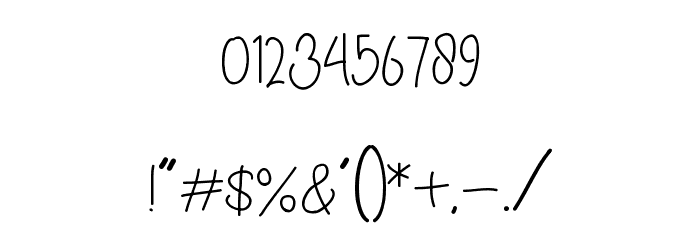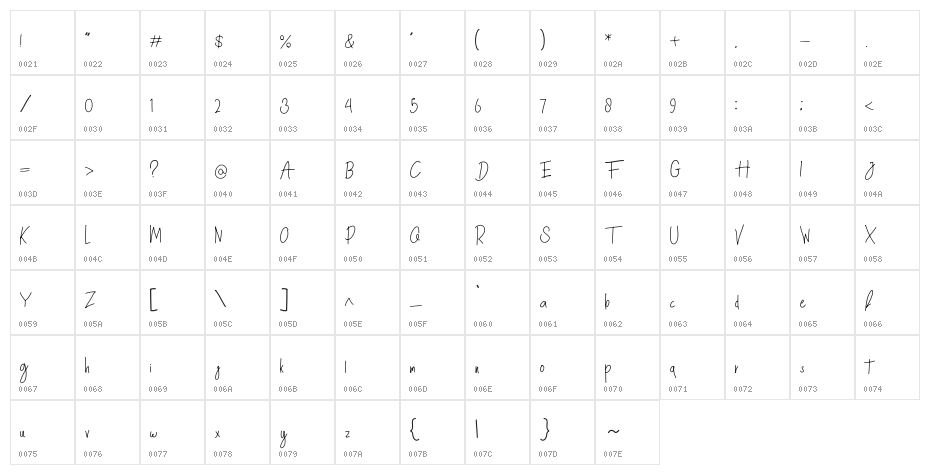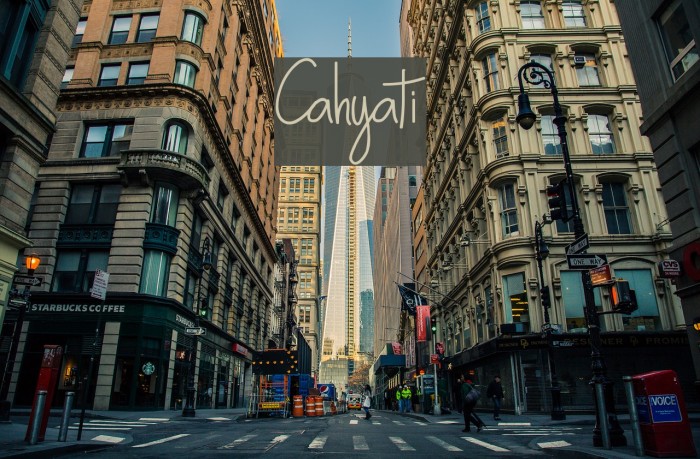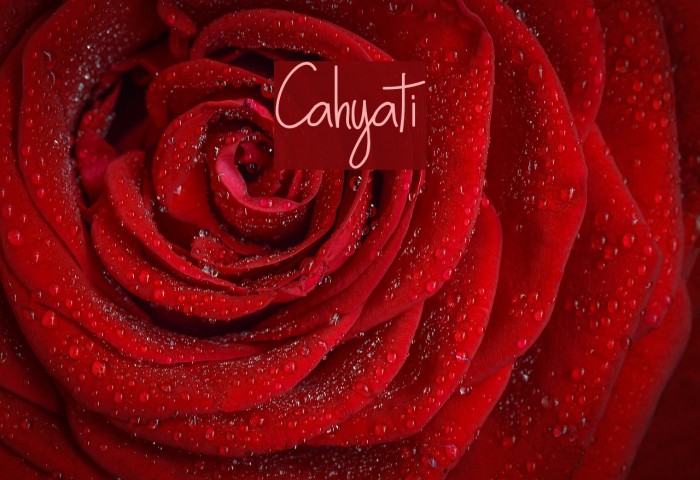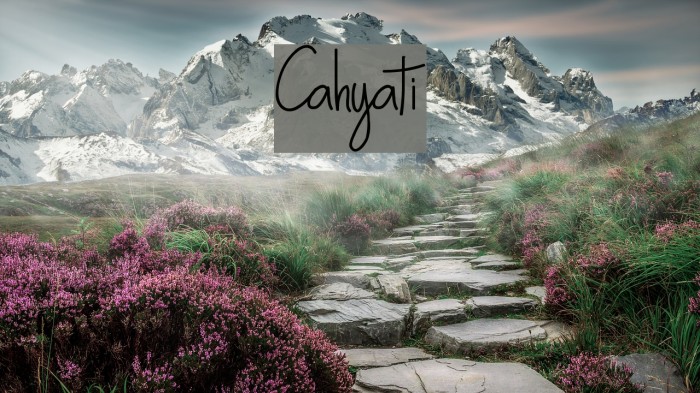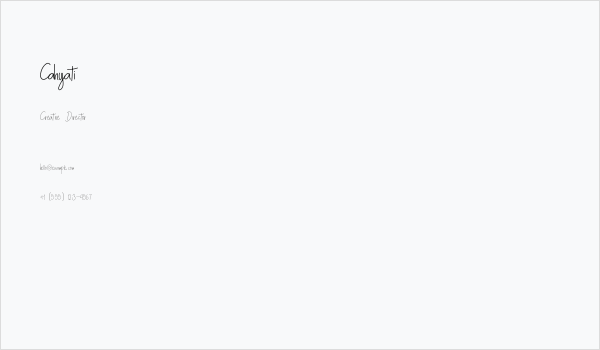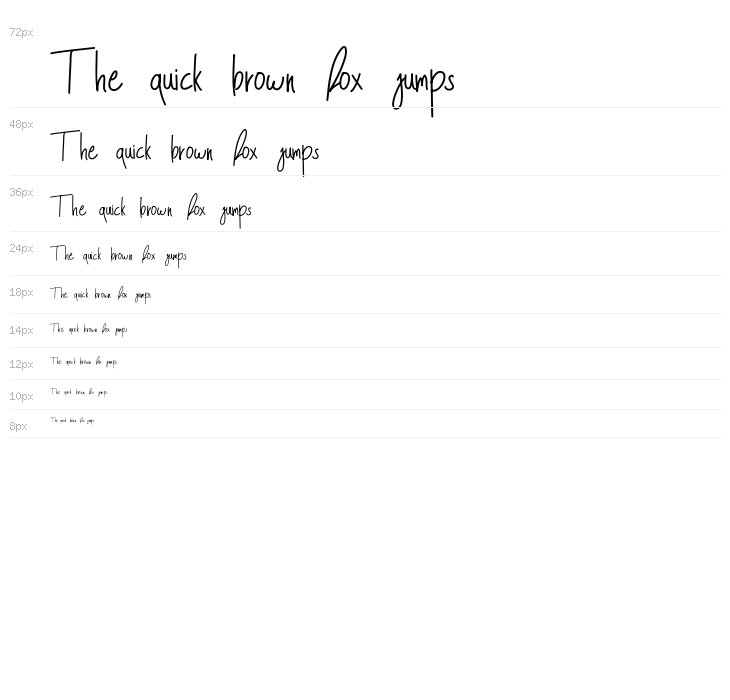
Cahyati Font
Cahyati Description
This font features a playful and casual handwritten style, characterized by its irregular strokes and slightly uneven baseline. The uppercase letters are tall and slender, while the lowercase letters maintain a consistent flow with a touch of whimsy. The numerals are distinct and easy to read, complementing the overall informal aesthetic. Special characters are creatively integrated, enhancing the font's versatility. This font exudes a friendly and approachable vibe, making it suitable for a variety of creative projects.
| Proposed Projects | Ideal for greeting cards, invitations, personal blogs, and creative branding projects. |